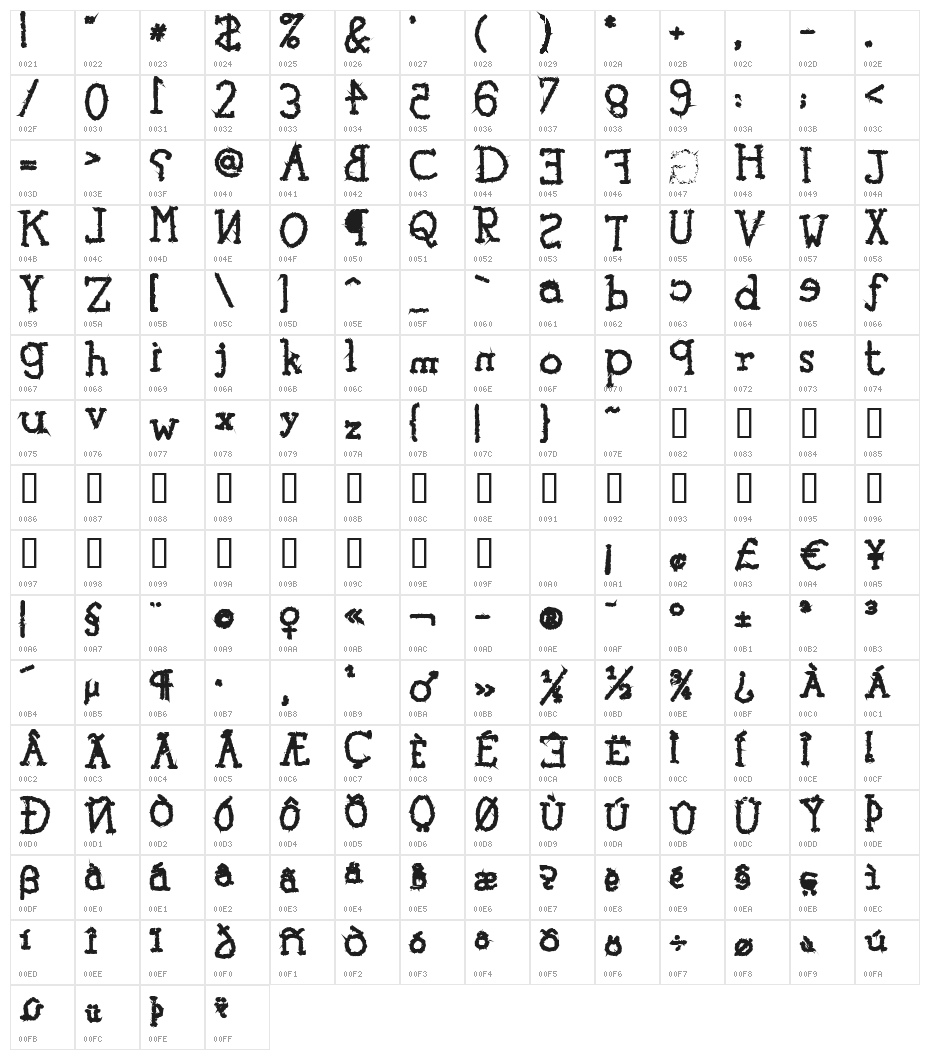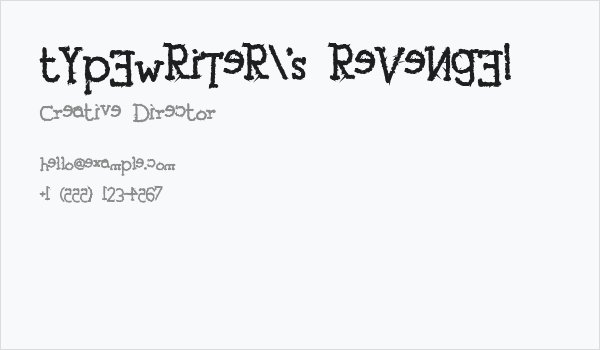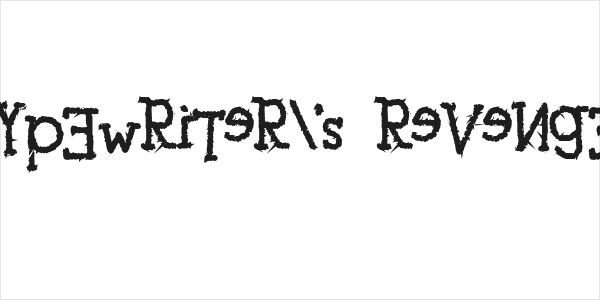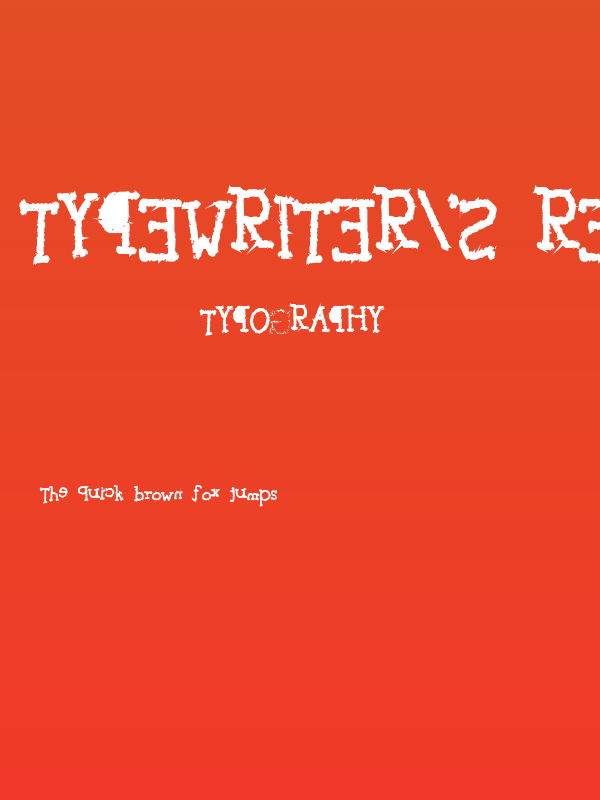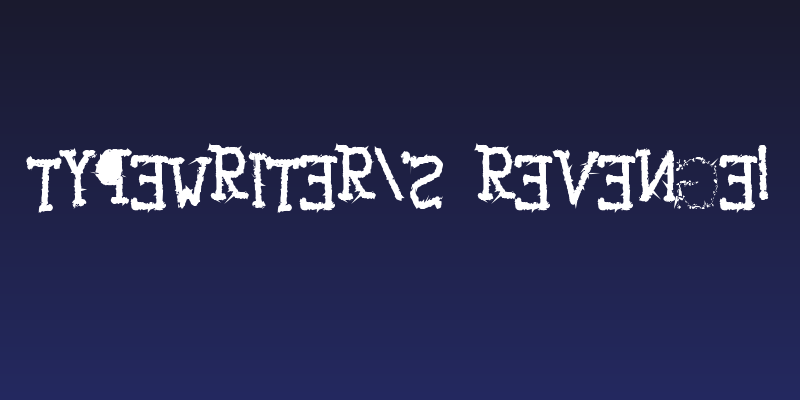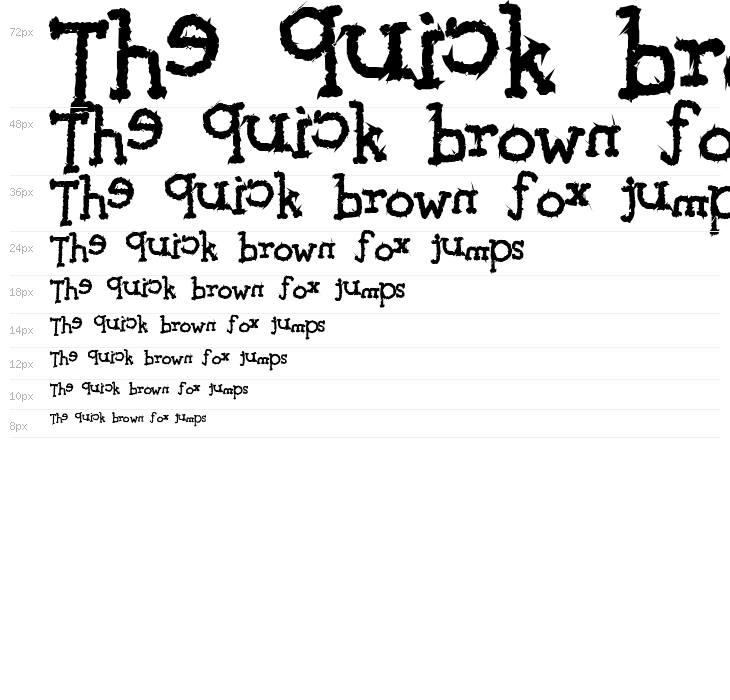
tYpEwRiTeR's ReVeNgE! Font
tYpEwRiTeR's ReVeNgE! Description
This font exhibits a rugged, distressed style reminiscent of typewriter text that has been heavily worn or eroded. The characters are uneven and jagged, giving them a raw, organic feel. The uppercase and lowercase letters maintain a consistent height, but the rough edges and irregularities create a sense of unpredictability. Numbers and special characters follow the same distressed aesthetic, adding to the overall cohesive look. This font's unique and bold appearance makes it stand out, evoking a sense of vintage or grunge style.
| Overall Style | Vintage, Grunge |
| Proposed Projects | Ideal for projects requiring a vintage or grunge look, such as posters, album covers, or themed event invitations. |